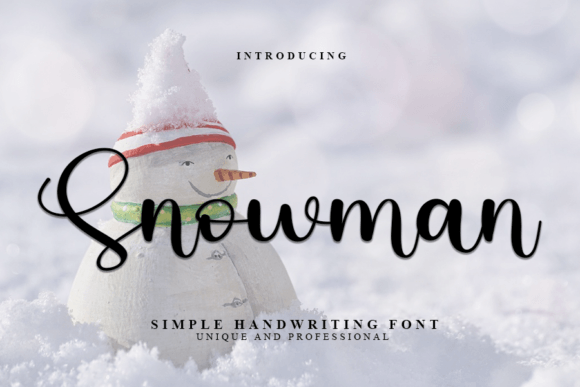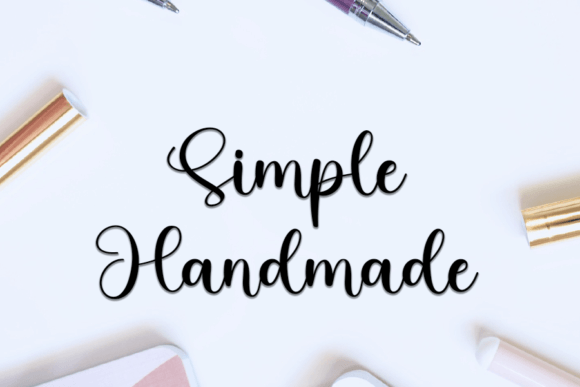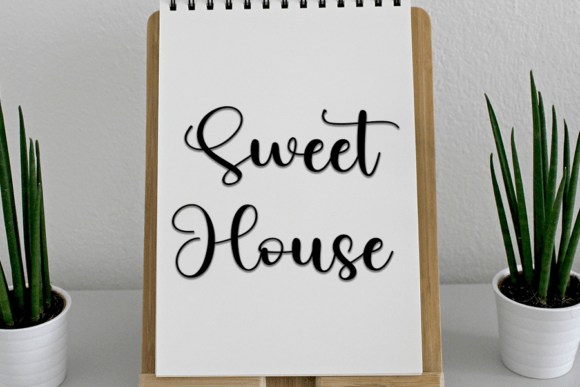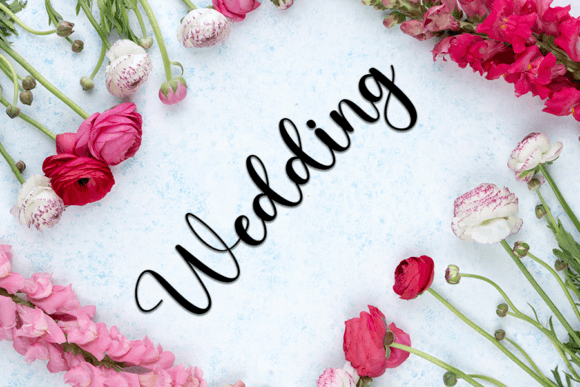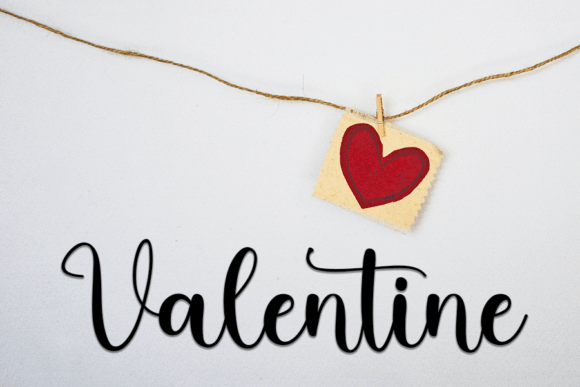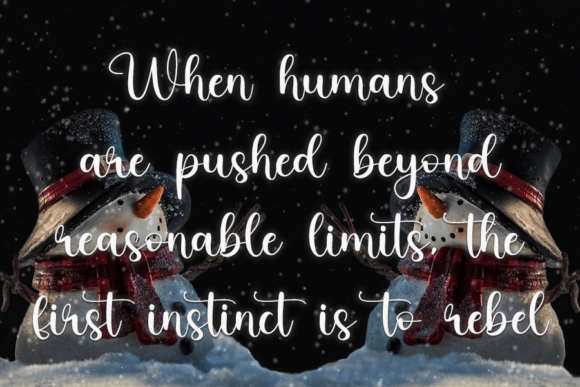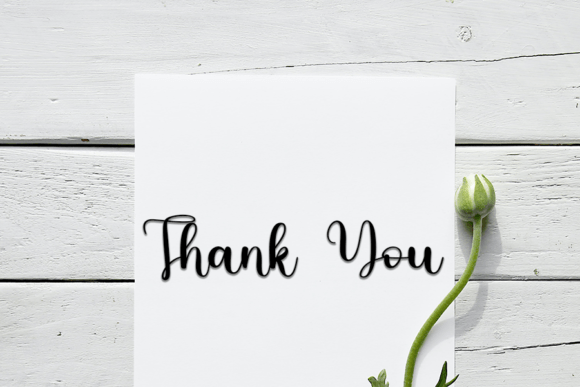
Snowman Font
Add boldness and beauty with the Snowman font. This script font is designed to make your creative projects stand out. Whether you’re working on crafts, digital design, presentations, or creating greeting cards, this font offers versatility and style.
The Snowman font is perfect for a wide range of design applications. Use it for logos, headlines, posters, invitations, and social media content. Its strong and elegant style gives your work personality and flair.
Each character is crafted with thick, flowing strokes that create a polished and dynamic look. The font balances boldness with readability, making it ideal for titles, quotes, and decorative text.
Despite its bold style, the Snowman font remains readable at different sizes. Whether used for prominent headlines or subtle accents, it adapts perfectly. Its flexibility makes it a great choice for many creative projects.
Using this font will help your designs make a strong and memorable impression. It adds confidence and charm to your work. If you want your designs to look bold and professional, the Snowmanfont is an excellent choice.
In summary, the Snowmanfont fits many creative needs. From crafts and digital designs to presentations and greeting cards, it brings strength and elegance. Download it today and create stunning, bold designs with a beautiful script font.